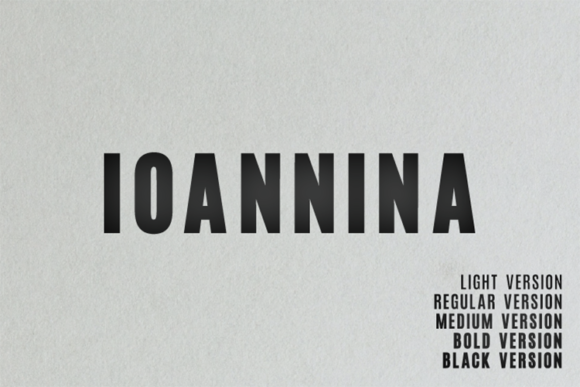
Ioannina Family Font
About the Ioannina Family Font
From logos to headlines, the Ioannina Family Font is the perfect choice for making a lasting impression. Ioannina is the strong sans serif typcae with a vintage touch. Get inspired by its bold appearance!
Ioannina’s bold, vintage-inspired aesthetic makes it ideal for headlines, logos, and short, impactful text in branding materials and posters. Its strong presence commands attention, making it well-suited for projects needing a confident and assertive voice. However, its weight and character make it less suitable for body text or UI elements where readability over long stretches is paramount.
Pairing Ioannina effectively requires considering its robust personality. A classic serif like Garamond or a clean, geometric sans-serif like Futura provides a sophisticated contrast, balancing its boldness with refined elegance. For a more playful feel, a handwritten script font could complement Ioannina’s vintage cues.
The overall personality of Ioannina is bold and assertive yet retains a touch of vintage charm, making it suitable for brands projecting confidence and a sense of established quality. Avoid pairing it with overly decorative or overly thin fonts which could dilute its powerful presence.
Ioannina Family Font Usage Examples
Ioannina Family Font Example